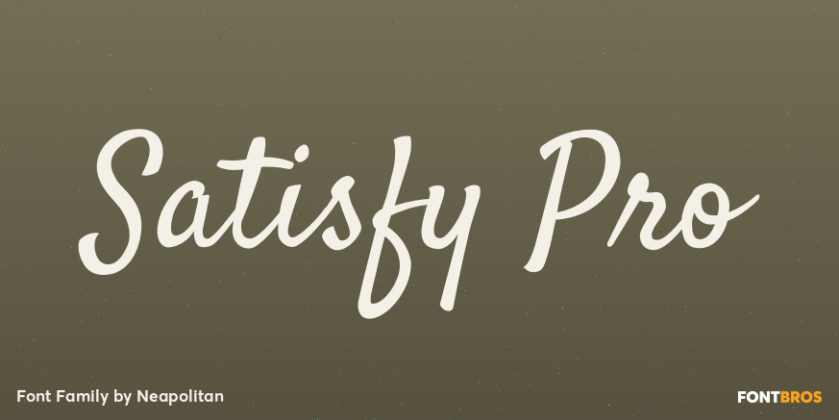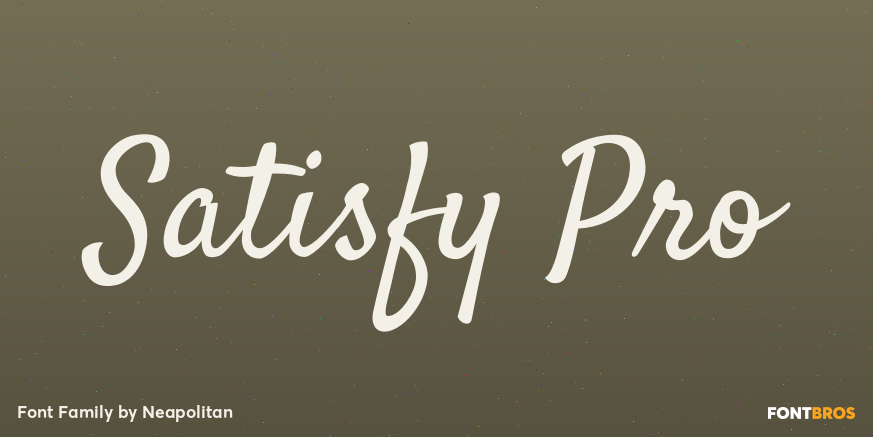
Satisfy Pro
Looking for a brush script with a little pizazz? This new Neapolitan typeface will fill the bill! Satisfy gives you the look of a timeless classic with a unique modern flair. The Pro version has been expanded and enhanced with more characters, dynamic…